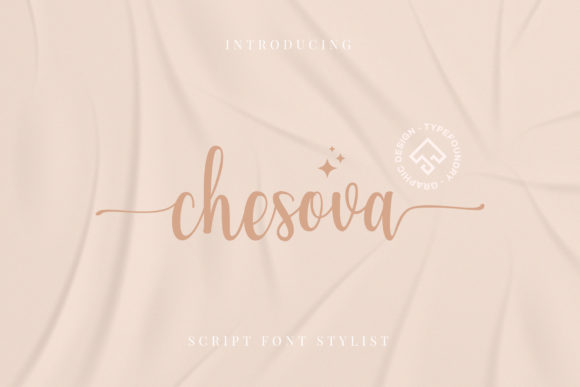
**Unleash the Allure of Chesova: The Script Font That Embodies Grace and Sophistication**
Immerse yourself in the captivating world of Chesova, a script font that exudes elegance and charm. Its meticulously crafted characters dance across the page with a fluidity that mimics the beauty of handwritten prose. This exquisite font is the embodiment of refined artistry, designed to elevate your creative endeavors to new heights.
**A Masterpiece for Personalized Designs**
Chesova's versatility knows no bounds. Its enchanting strokes lend themselves seamlessly to a myriad of design projects, from the intimate charm of wedding invitations to the heartfelt warmth of thank-you cards. The possibilities are endless, as Chesova's graceful presence adds a touch of personalization and sophistication to every creation.
**Effortless Access to Creative Freedom**
**Unleash the Power of Expression**
Chesova is more than just a font; it's an invitation to express your individuality. Its elegant curves and flourishes convey emotions with unparalleled grace, allowing you to craft designs that resonate deeply with your audience. From heartfelt messages to awe-inspiring brand identities, Chesova empowers you to make a statement that captivates and inspires.
**A Timeless Treasure for Your Creative Arsenal**